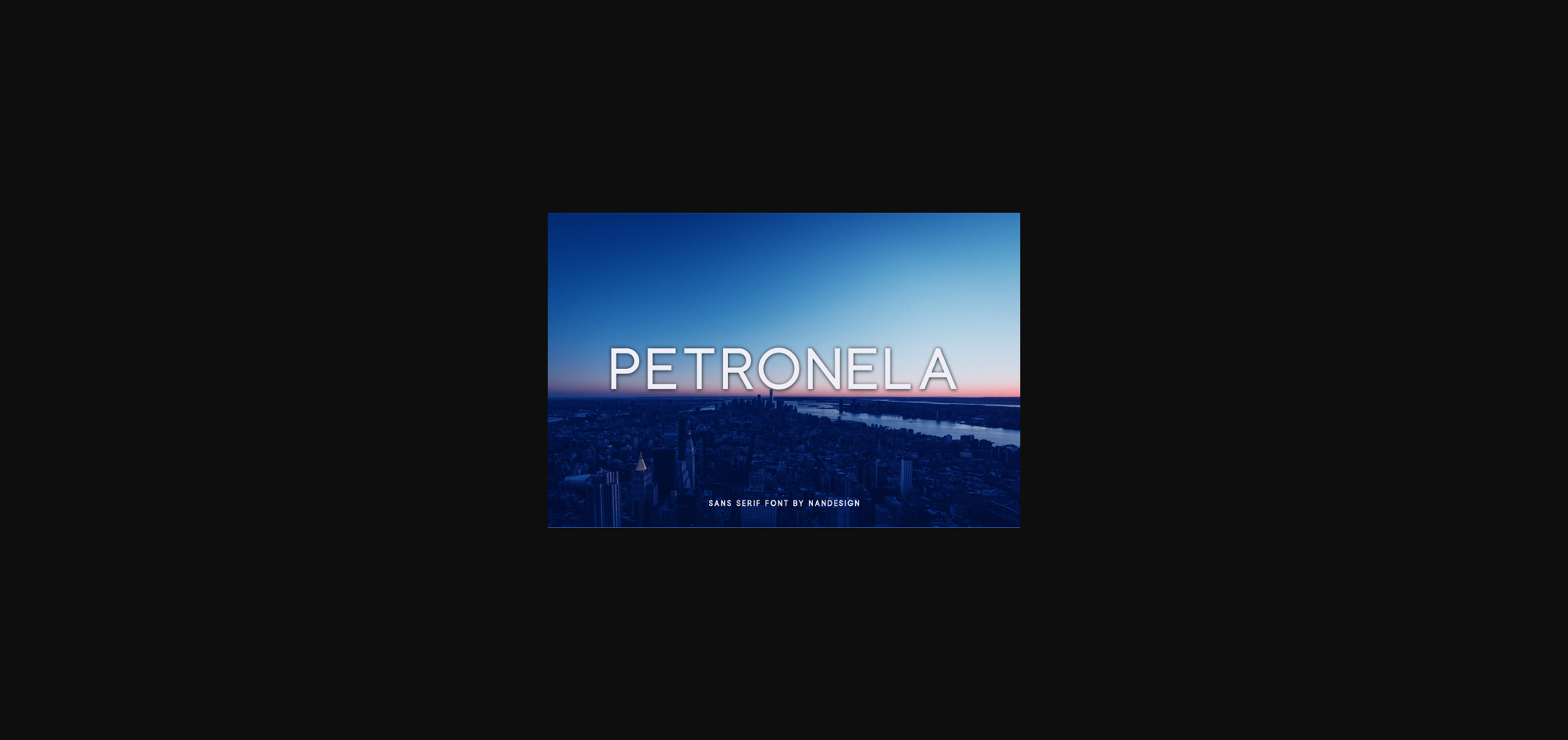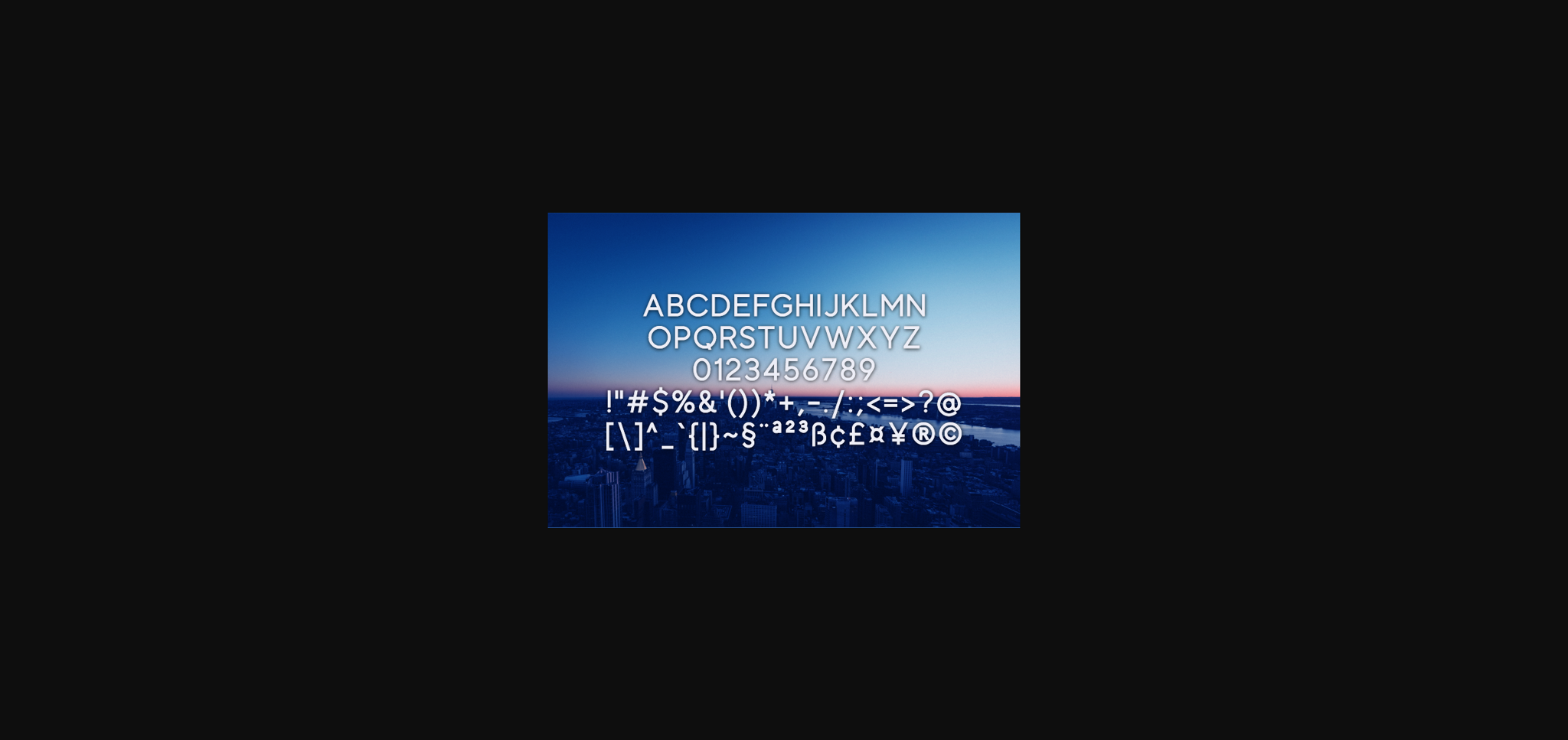
HomeSans Serif FontsPetronela Font Sans Serif Fonts Petronela Font FacebookXPinterestWhatsApp 1 of 5 ... Petronela Font Poster 2... Petronela Font Poster 3... Petronela Font Poster 4... Petronela Font Poster 5... About Petronela Font Petronela is a clean and smooth sans serif font. No matter the topic, this font will be an incredibly asset to your fonts’ library, as it has the potential to elevate any creation. DOWNLOAD NOW People also explored Bethanien Font Madeline Font Rockhead Font Hooray Font Momentum Font Simple Black Font Beelover Font Carmela Font Cresie Font 459 0 TagsPetronela Font Previous articleMezdaluna FontNext articleFrencosta Font LEAVE A REPLY Cancel reply Comment: Please enter your comment! Name:* Please enter your name here Email:* You have entered an incorrect email address! Please enter your email address here Website: Save my name, email, and website in this browser for the next time I comment. Personal Use Free Bahjera Personal Use Free Read more about this font Bintang Noela Personal Use Free Read more about this font Eigha Personal Use Free Read more about this font Mini Story Personal Use Free Read more about this font BLOG Free vs Paid Fonts: Why Investing in Premium Fonts Is Worth It Free vs Paid Fonts: Why Premium Fonts Are Worth It in 2025 The debate of free vs paid fonts continues in the design world. While... Best Fonts for T-Shirt Design – Top 2025 Picks Exploring Font Trends How to Install and Use Fonts on Windows, macOS, and Web Projects